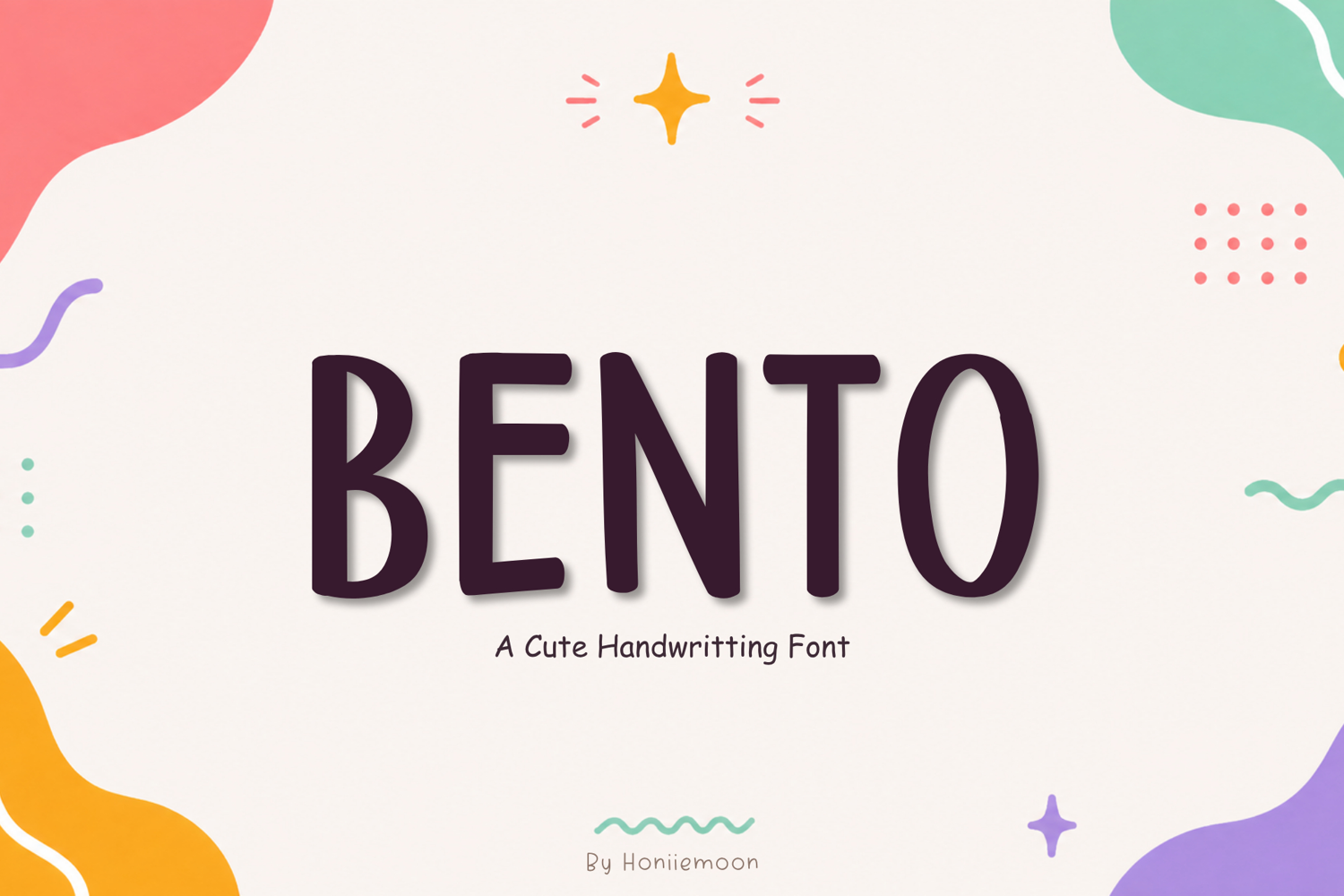
Meet Bento, a cute, playful, and fun handwritten sans-serif font designed to bring warmth, cheerfulness, and handcrafted charm to your creative projects!
With its tall proportions, clean monoline strokes, and friendly doodle aesthetic, Bento is exceptionally easy to read while keeping an authentic hand-drawn vibe. It is perfect for crafters, digital creators, and POD (print-on-demand) designers.